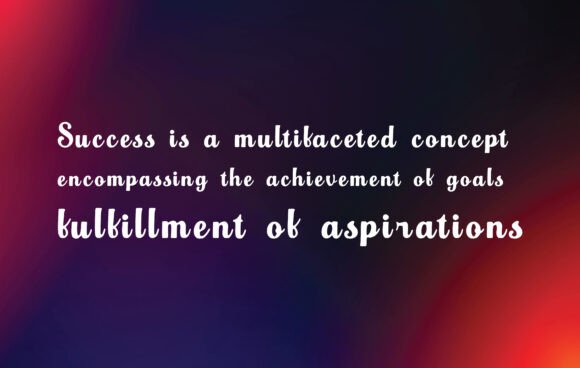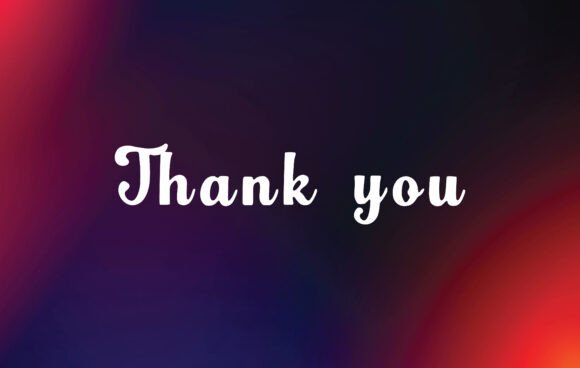
The Foxglove Font: A Beautiful Handwritten Font to Elevate Your Designs
I’ll never forget the moment I stumbled upon the Foxglove font while working on a branding project for a client. I had been searching for the perfect handwritten font to capture the essence of their eco-friendly products, but nothing seemed quite right. That was until I saw Foxglove – its elegant, flowing lines and whimsical charm instantly won me over. In this article, I’ll share my experience with this lovely font, its features, and how to make the most of it in your designs.
An Honest Review of Foxglove Font
What I Love About Foxglove Font ✨
- 💫 Elegant and Whimsical: Foxglove’s handwritten style is both elegant and playful, making it perfect for a wide range of design projects.
- ✅ Highly Versatile: This font can be used for logos, branding, quotes, and more, making it a great addition to any designer’s toolkit.
- 🌈 Beautiful Ligatures: Foxglove features stunning ligatures that add a touch of sophistication to any text.
- ⚠️ Limited Use in Small Sizes: Due to its intricate details, Foxglove may not be the best choice for very small font sizes, as it may lose some of its charm.
- ⚠️ Occasional Kerning Issues: As with any font, some users may experience kerning issues, especially when using certain character combinations.
The Story Behind Foxglove Font
The Foxglove font was designed by a talented typographer who wanted to create a font that captured the essence of nature and elegance. Inspired by the delicate, tubular bells of the foxglove flower, this font is both beautiful and unique.
| Font Name | Foxglove Font |
| Author | moonlight craft |
Q: What is the best use for Foxglove font?
A: Foxglove font is best used for creative projects that require a touch of elegance and whimsy, such as logos, branding, and quotes.
Q: Is Foxglove font suitable for body text?
A: While Foxglove font is beautiful, it may not be the best choice for body text due to its intricate details and potential kerning issues. It’s best used for headings or short paragraphs.